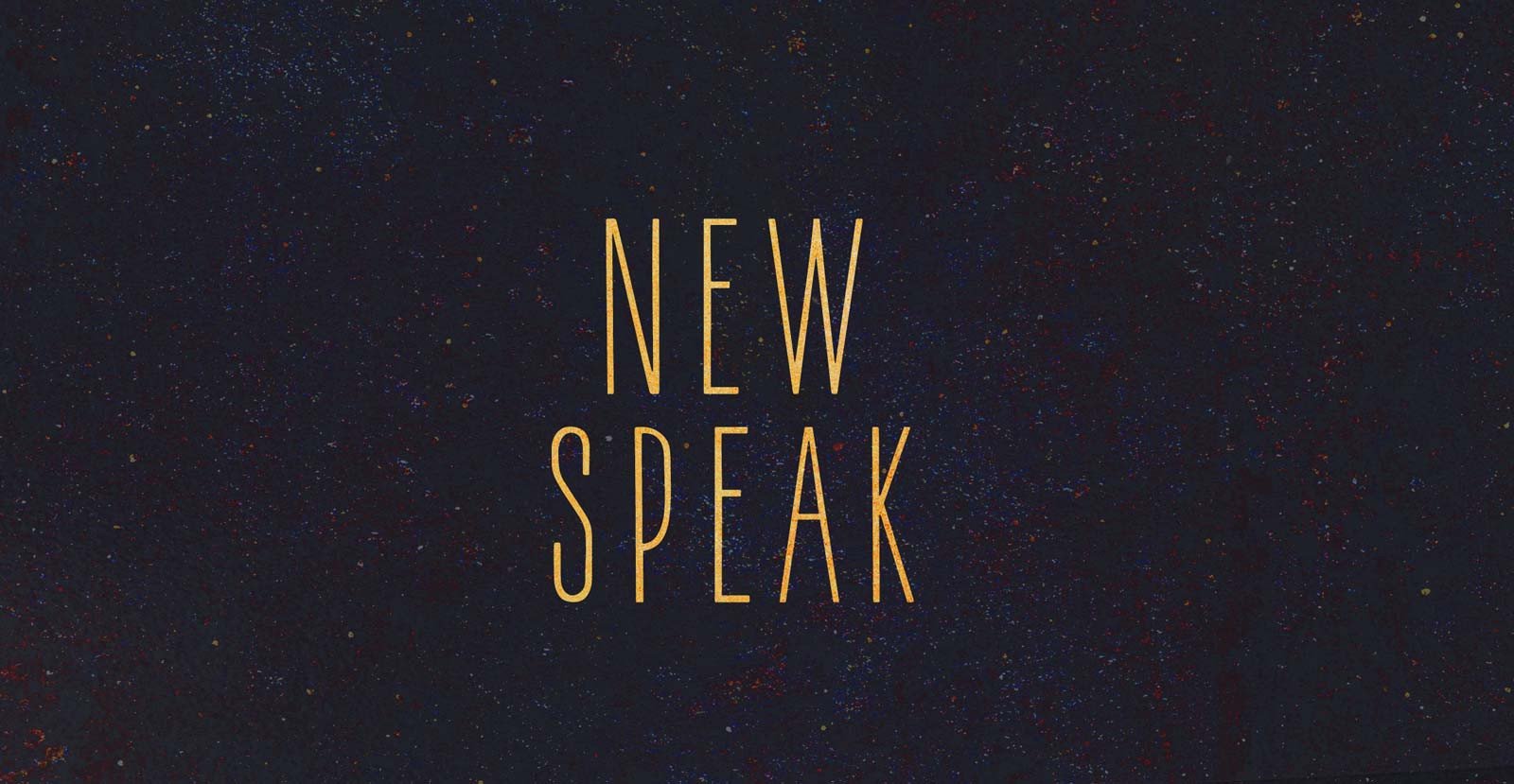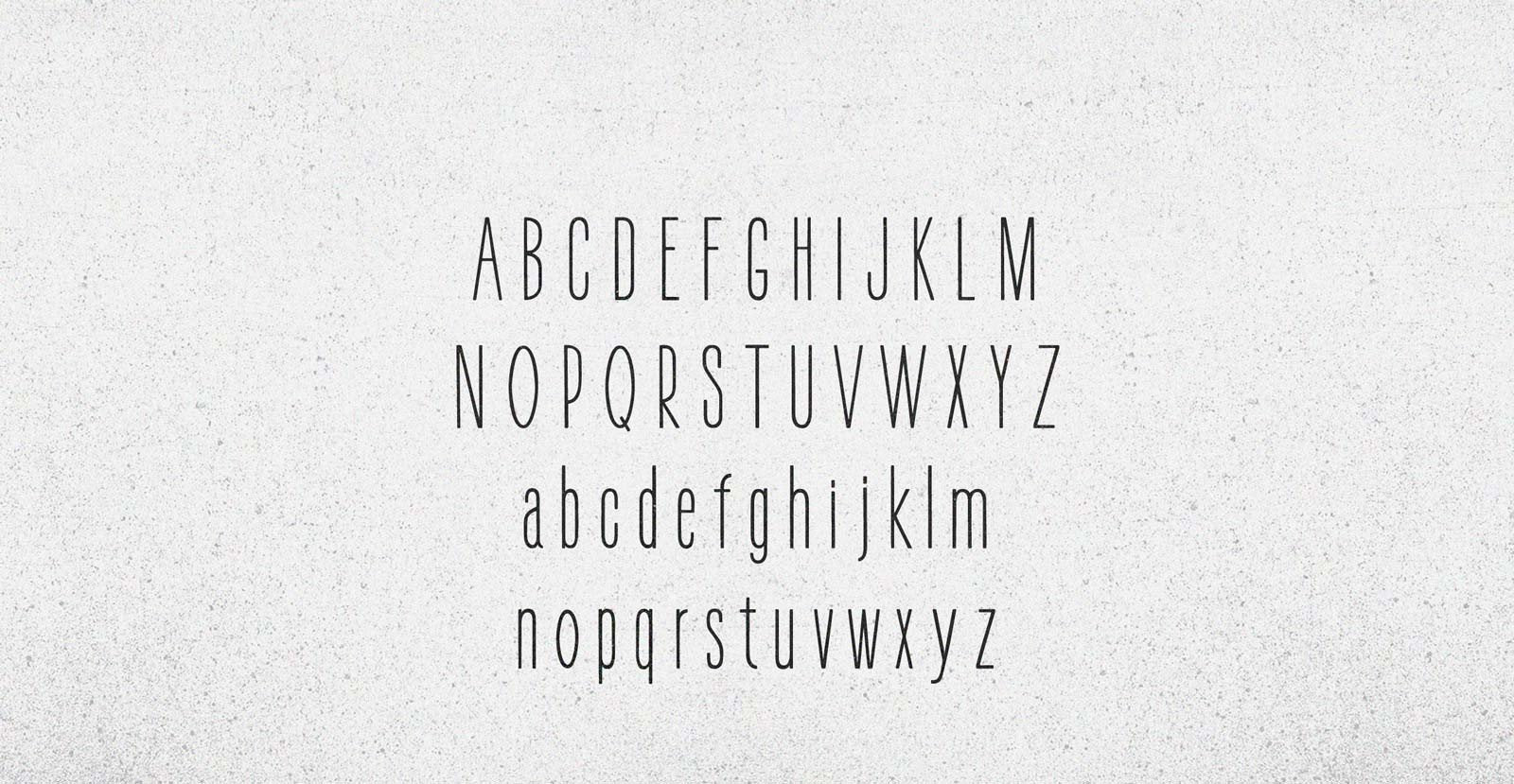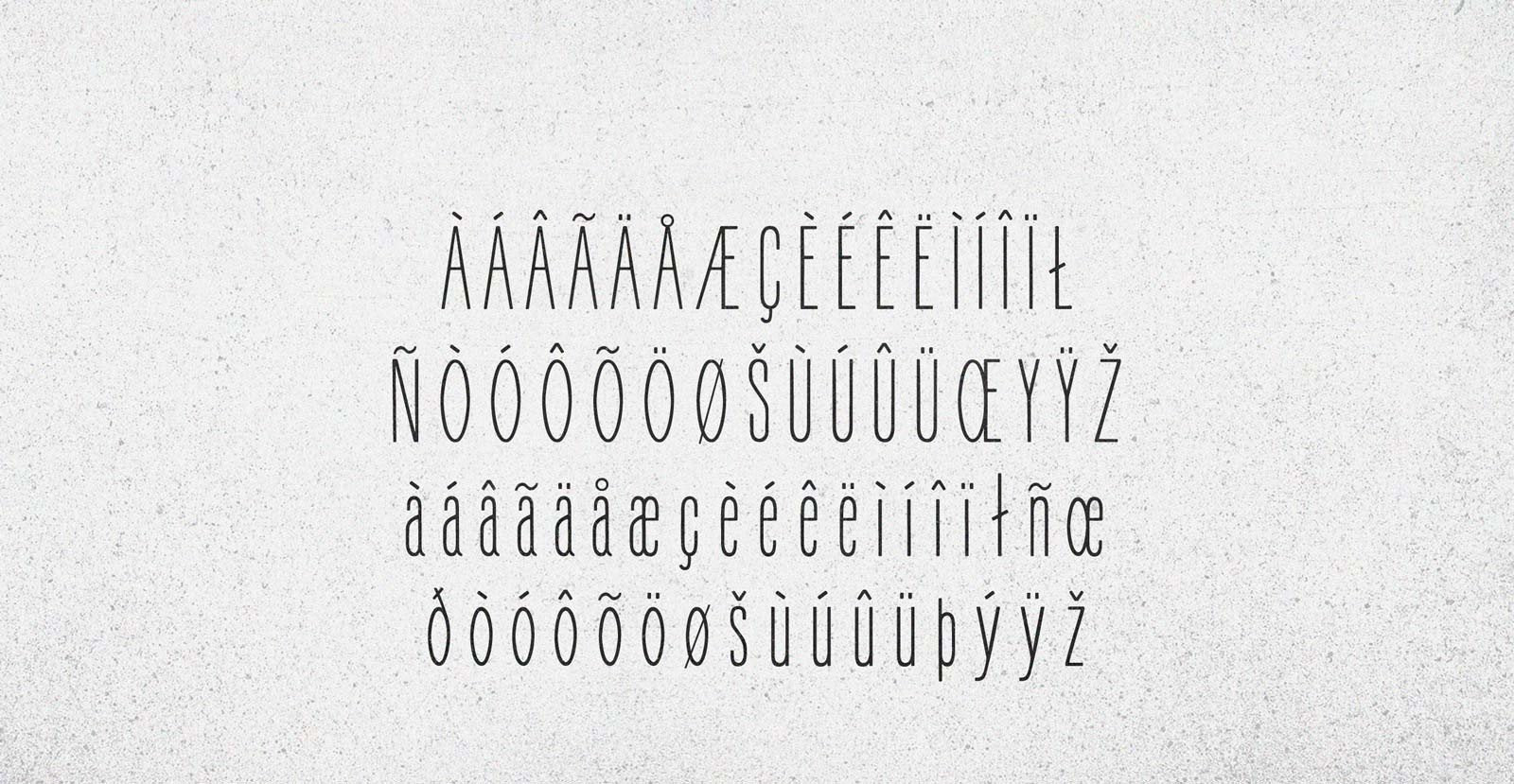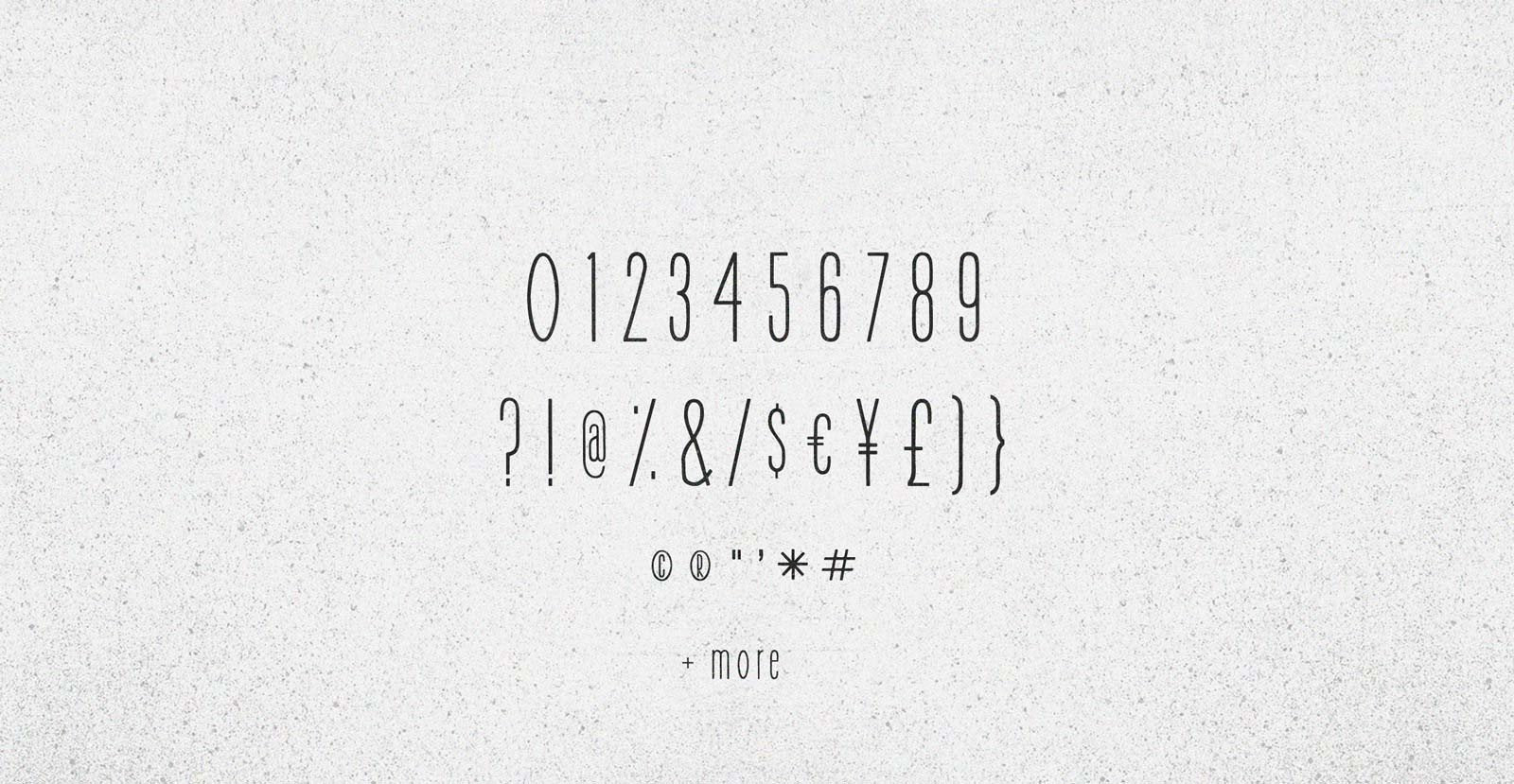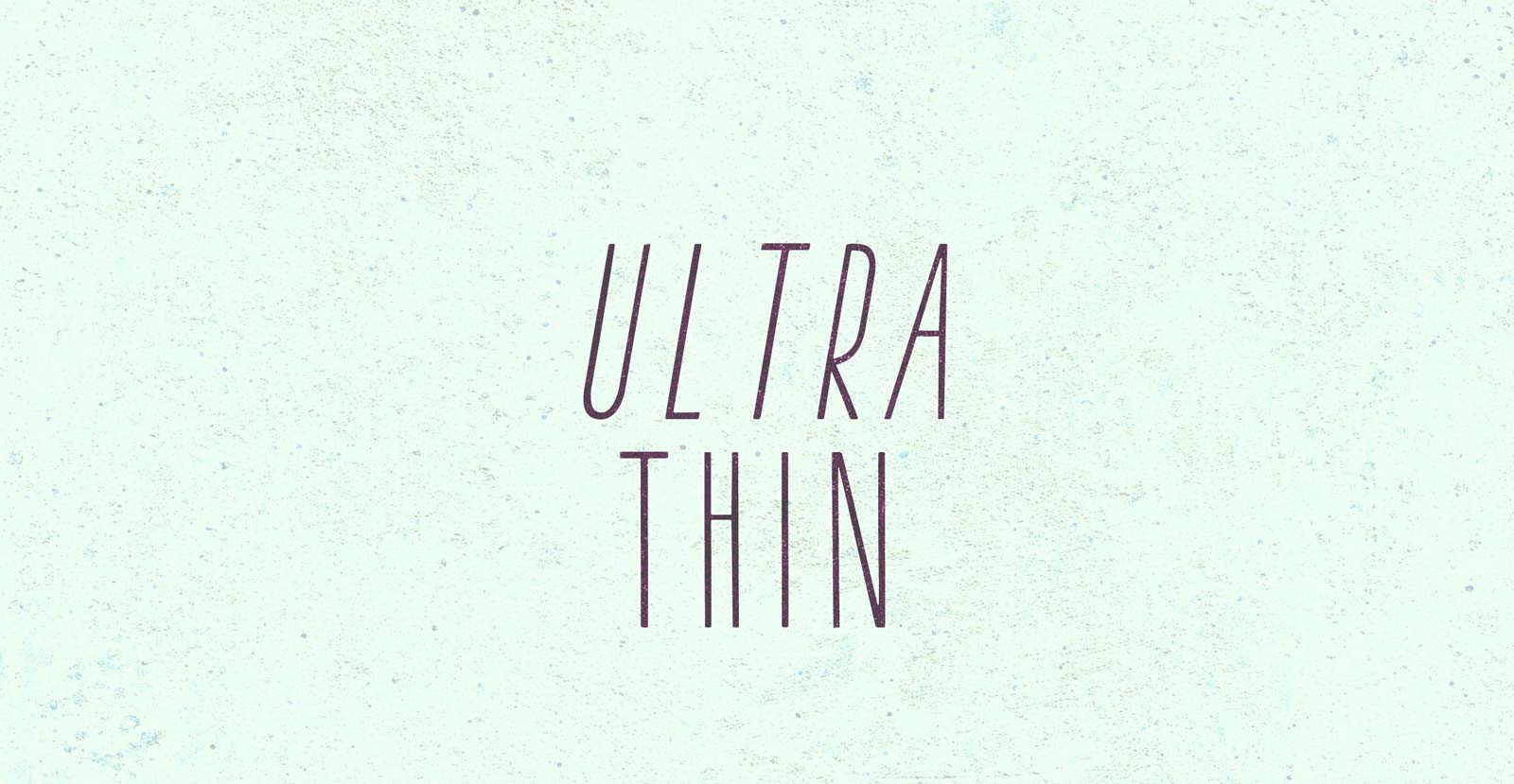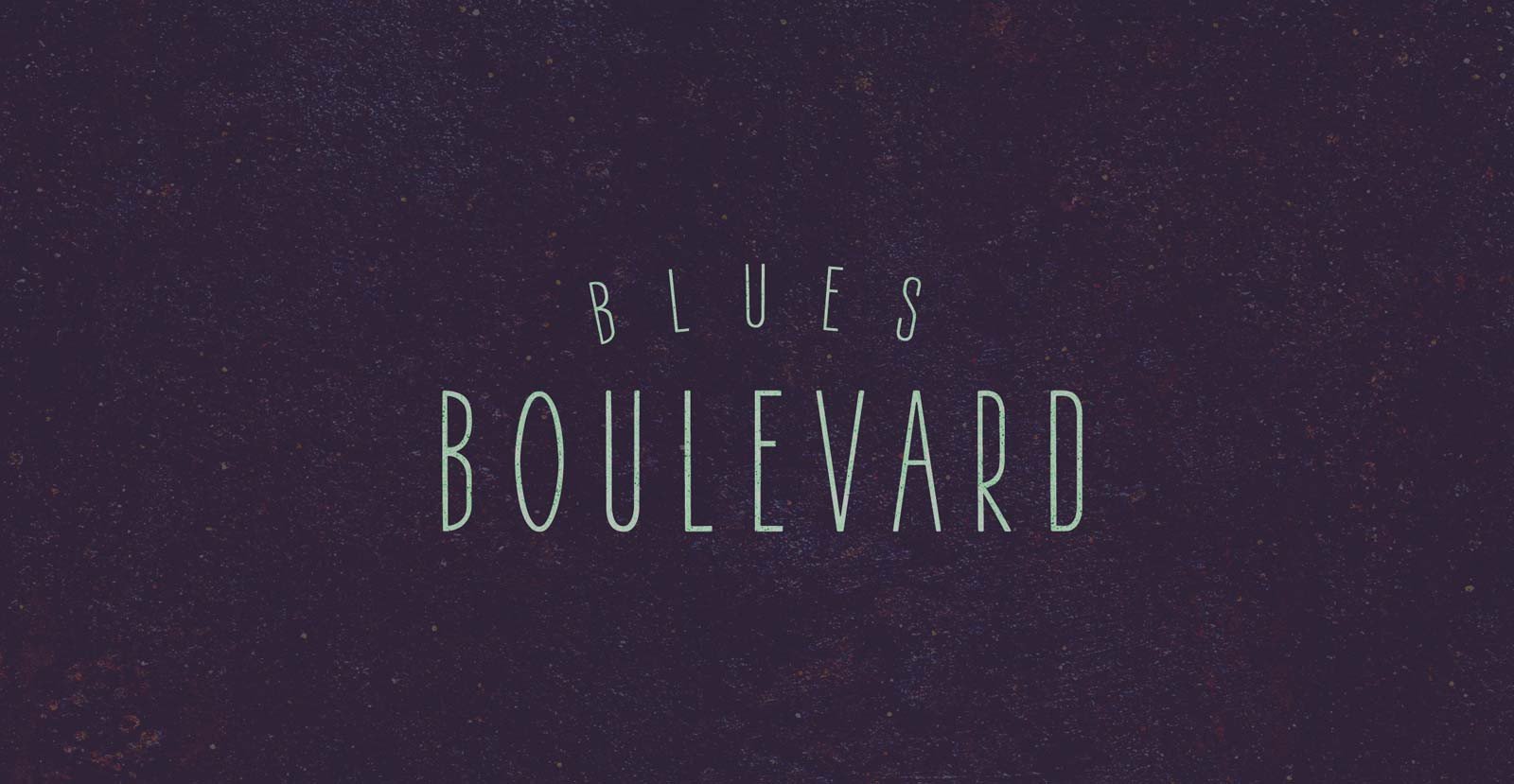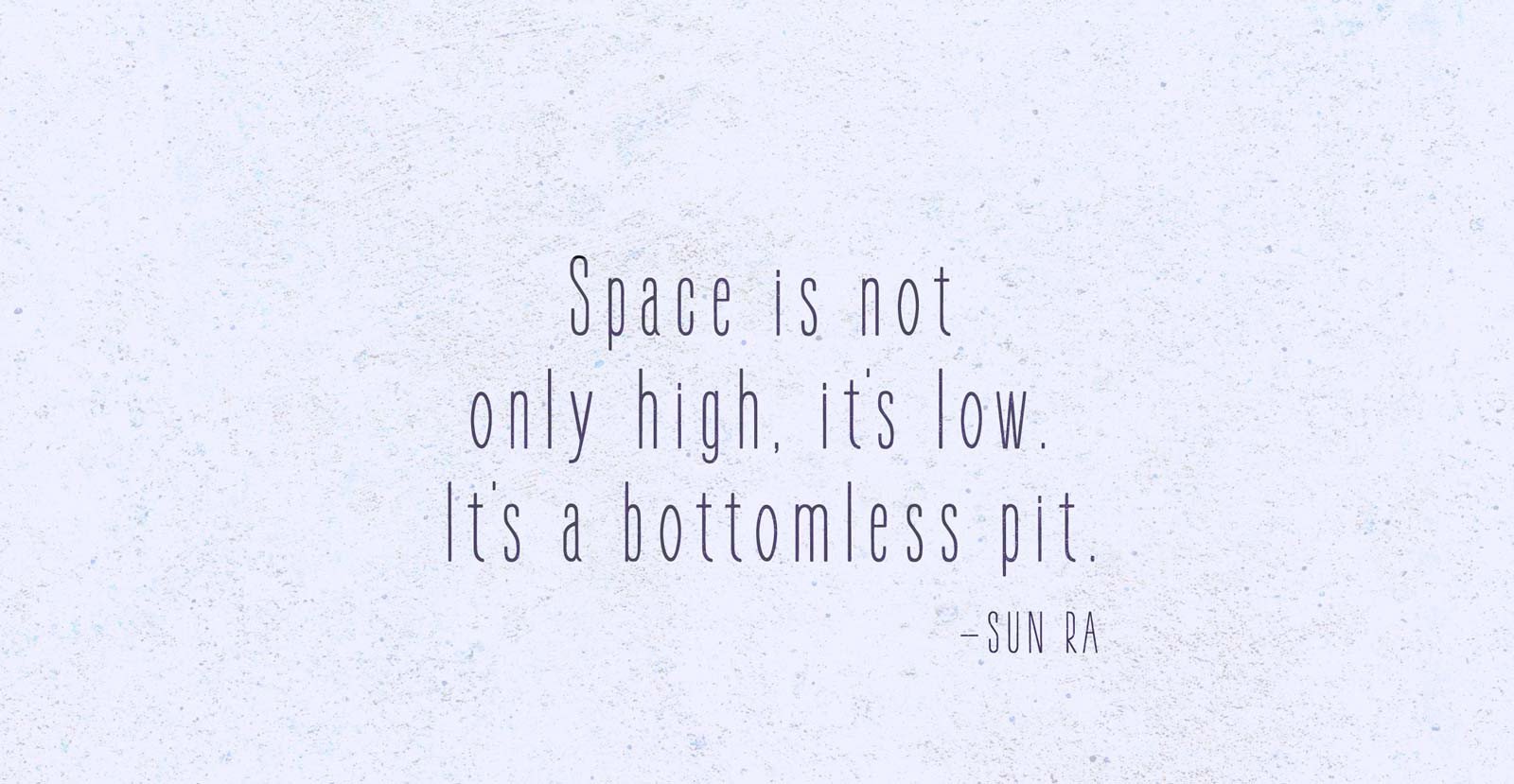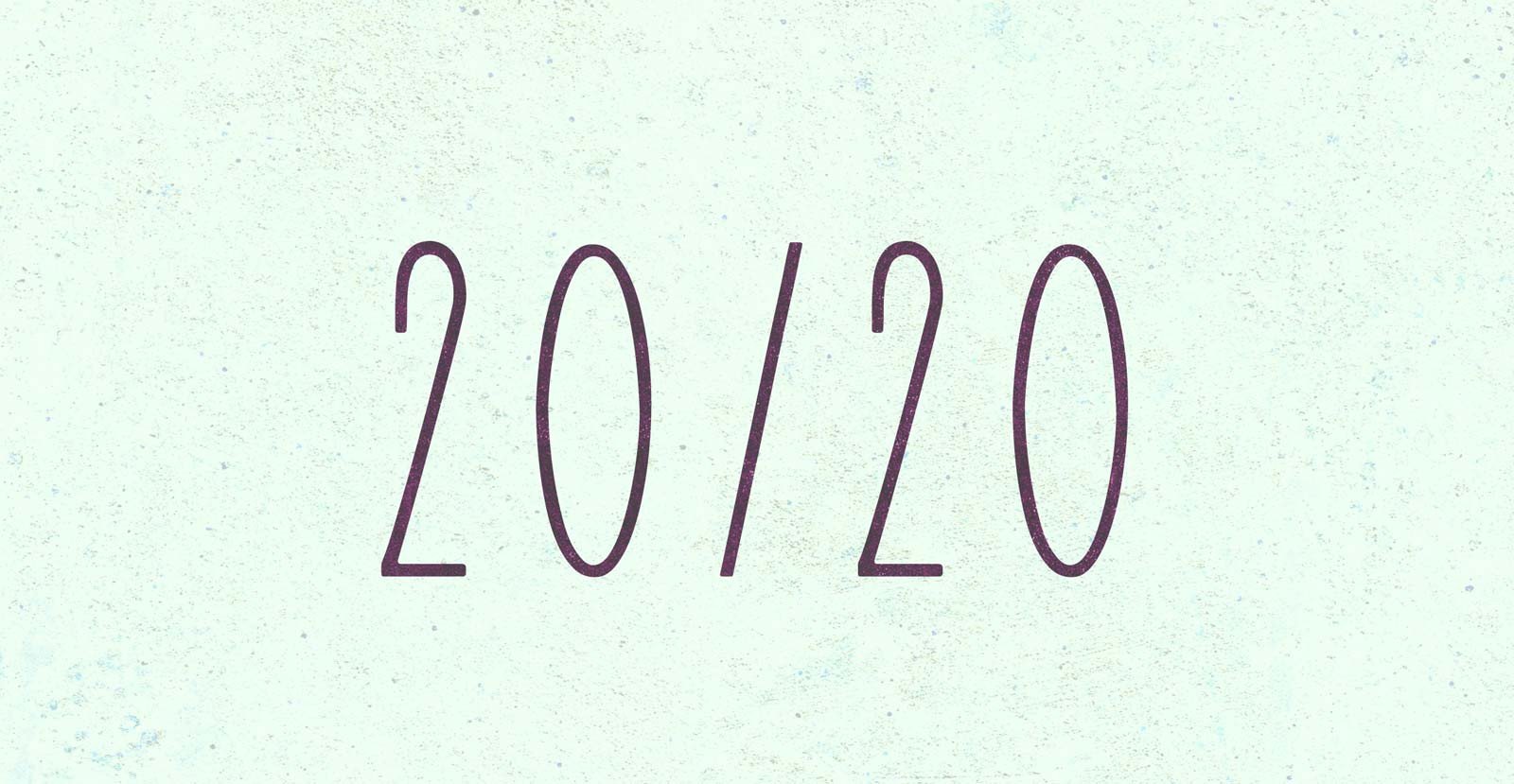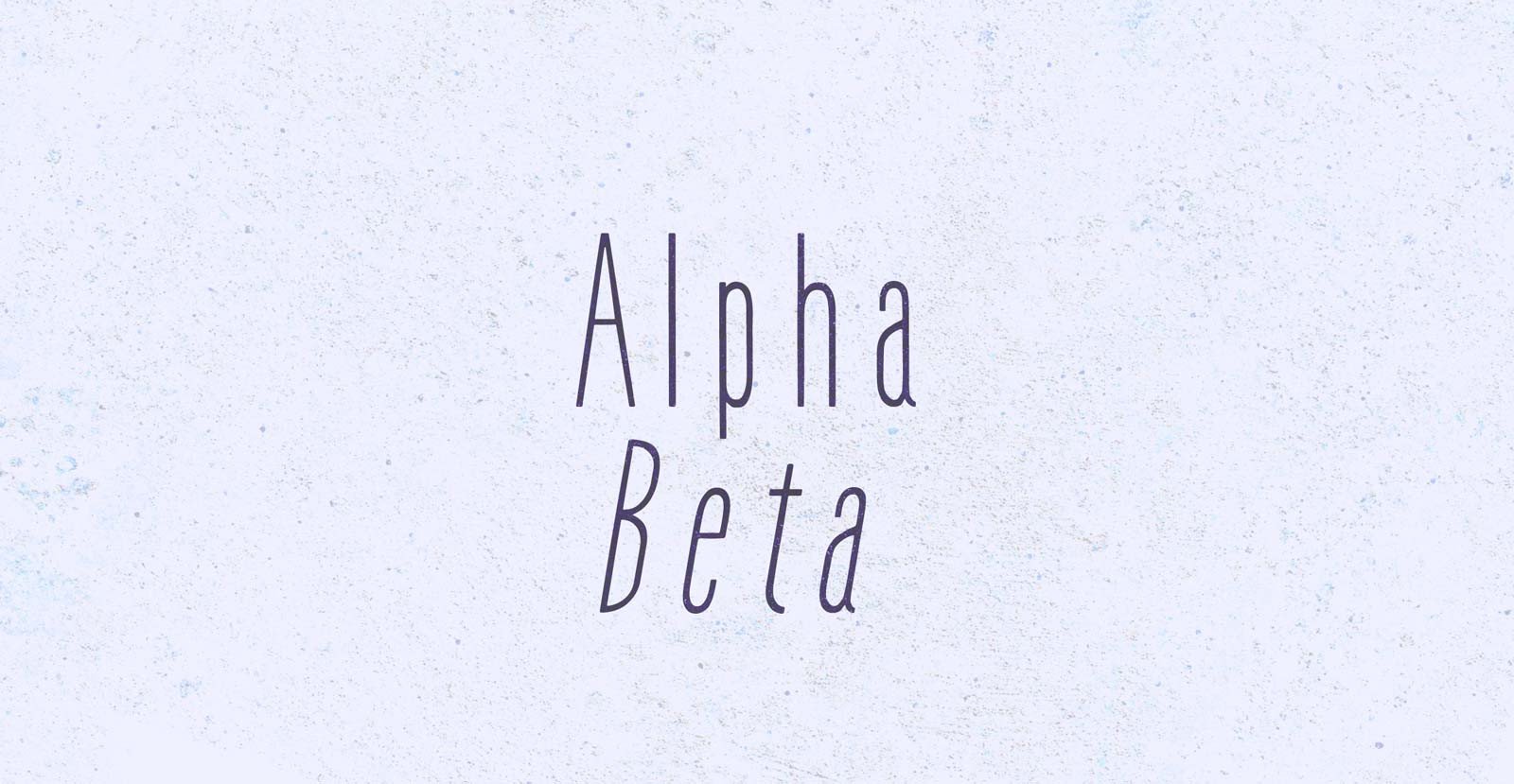
New Speak
Handwritten Sans Serif Font
Oldthink brothers beat the blackwhite, but that's crimethink, comrade. Get down with New Speak speedwise and unspeak any thoughtcrime.